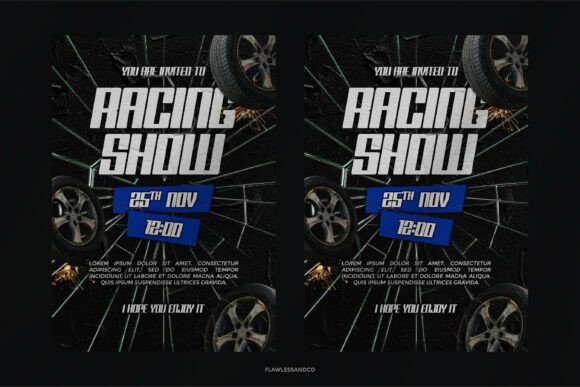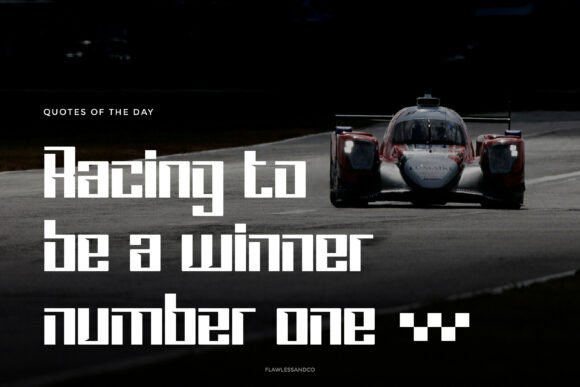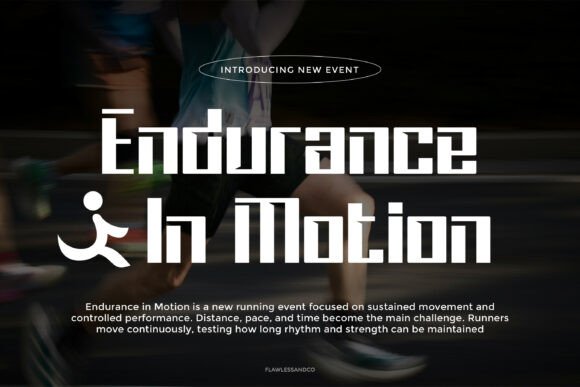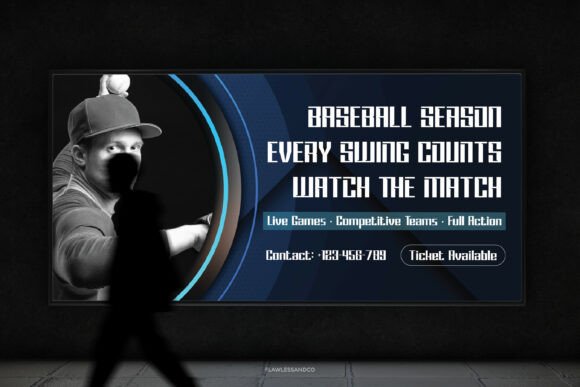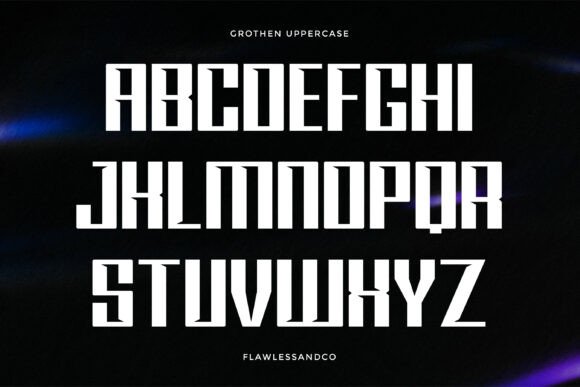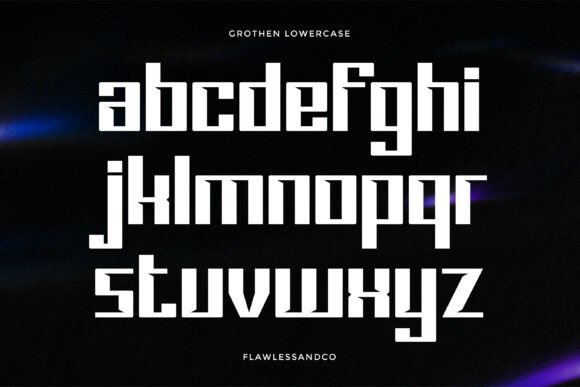
Introduction to Grothen Font
Grothen is a bold and energetic modern sport sans serif font designed to deliver strength, speed, and impact in every letter.
With its sharp edges, solid structure, and dynamic style, Grothen captures the spirit of athleticism and competition The font is crafted to stand out in high-impact designs while maintaining clarity and readability, making it perfect for attention-grabbing visuals.